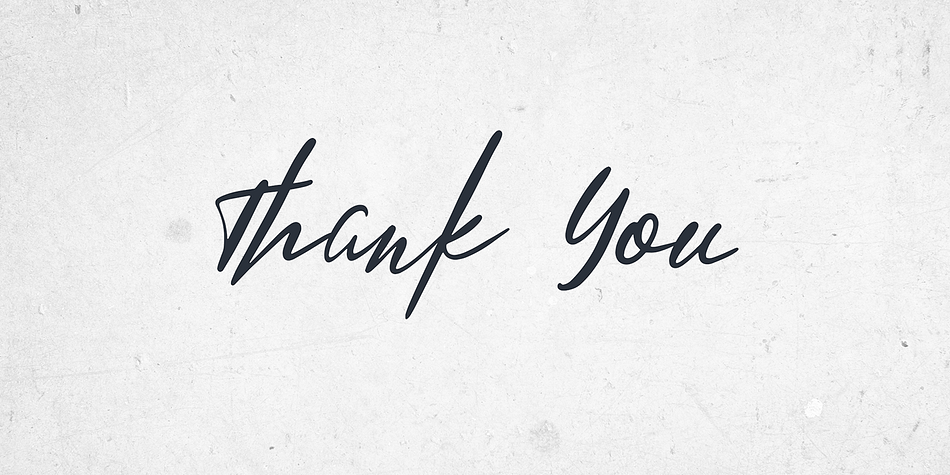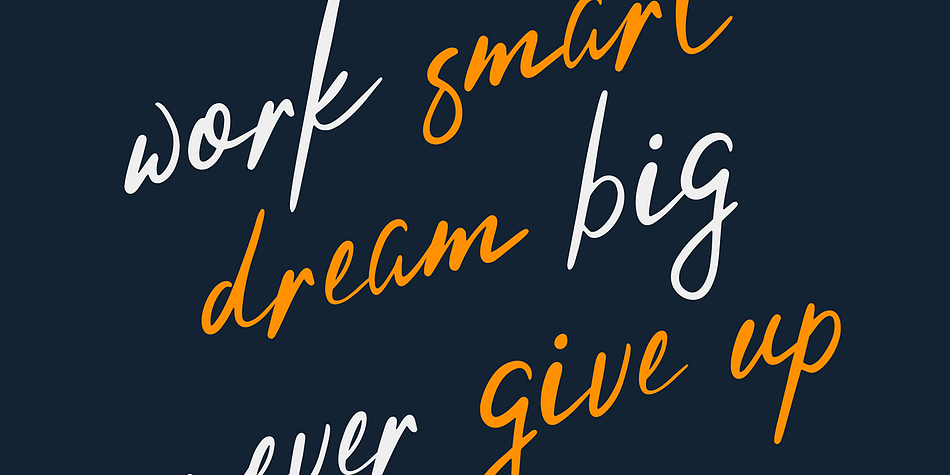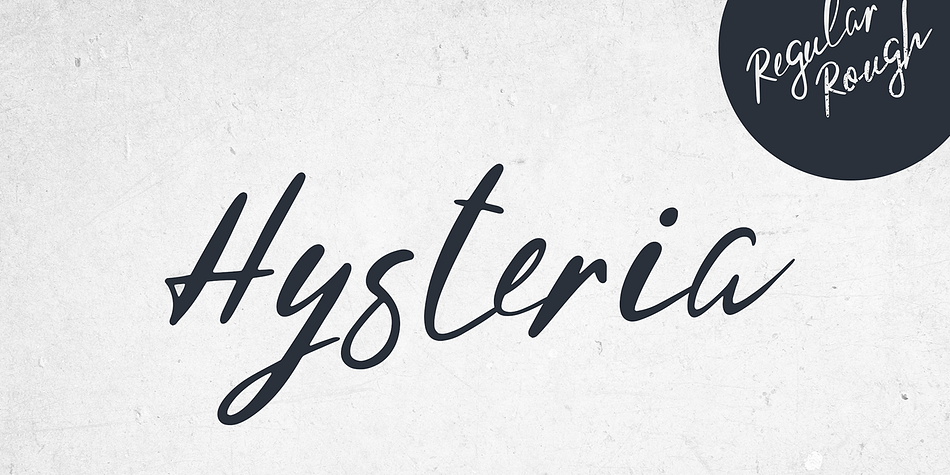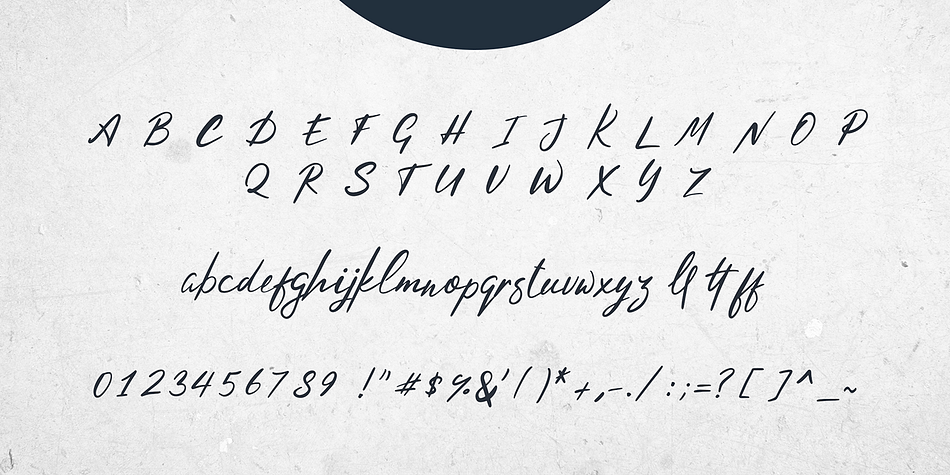
Hysteria
Hysteria is a modern calligraphy font family. This typeface has two styles and was published by VPcreativeshop.
Introducing Hysteria Script
Hysteria is handwritten, clean typeface with 2 styles and multilingual support.
It’s a very versatile font that works great in large and small sizes.
Hysteria is perfect for branding projects, home-ware designs, product packaging, magazine headers - or simply as a stylish text overlay to any background image.
Uppercase,lowercase,numeral,punctuation & Symbol
Multilingual
Regular
Rough
Ligatures
Natural feel